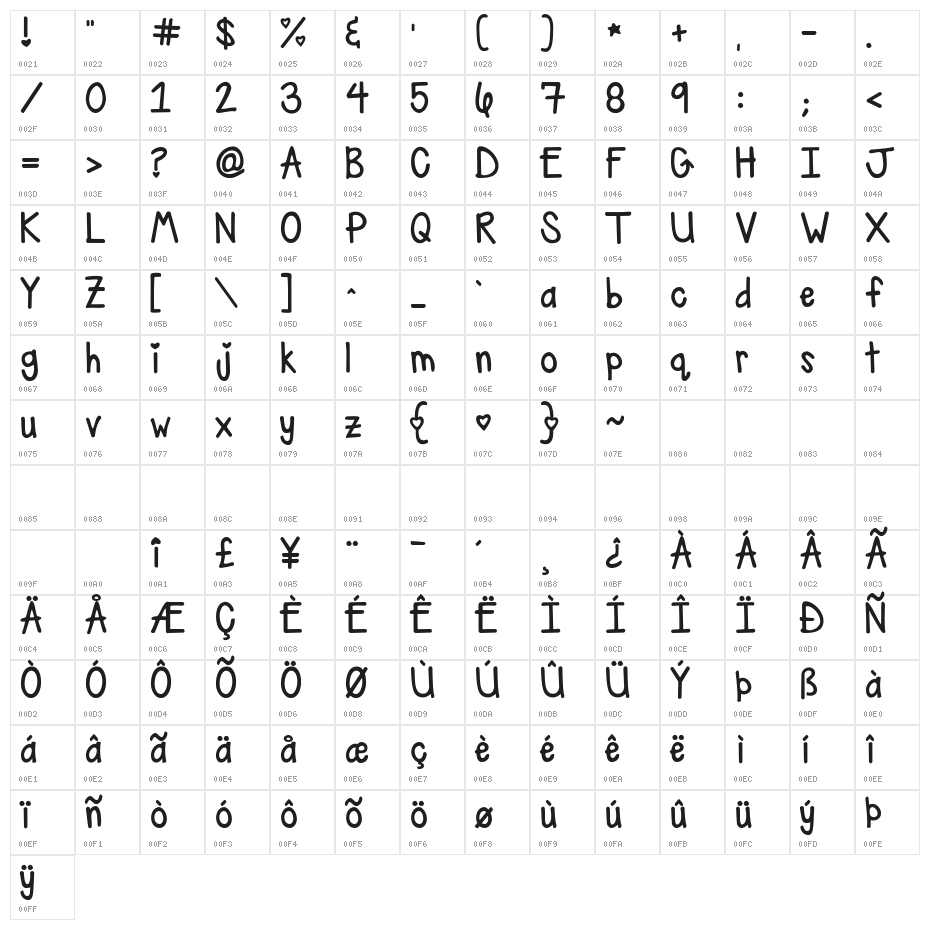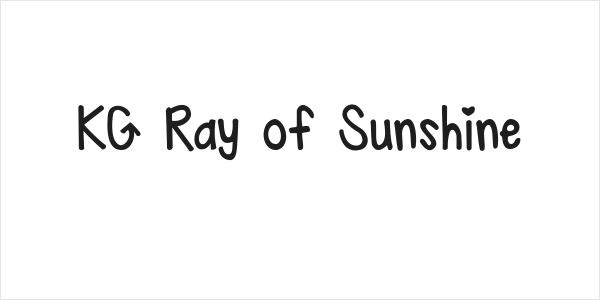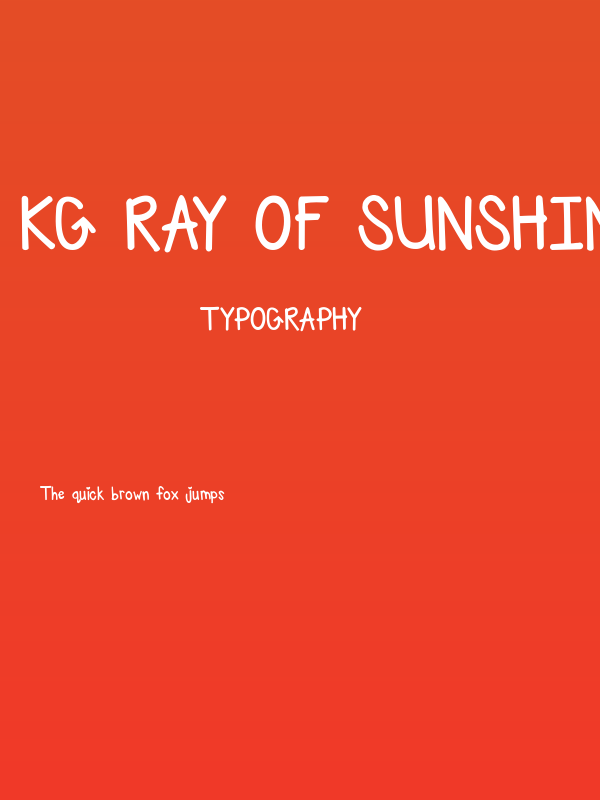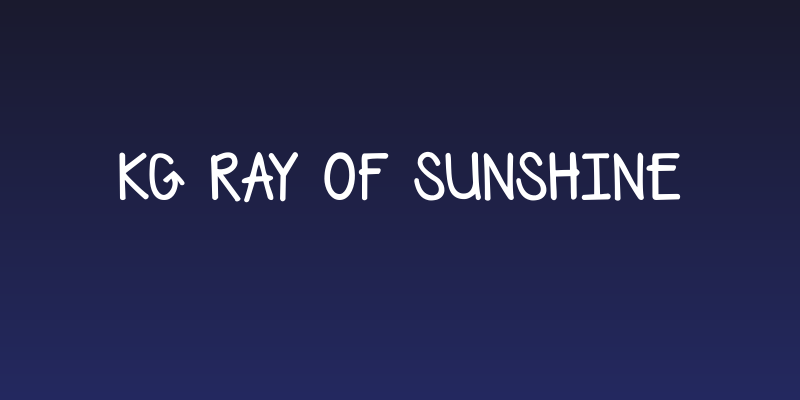
KG Ray of Sunshine Font
KG Ray of Sunshine Description
This playful and whimsical font features a handwritten style with a charming and friendly appearance. The letters are rounded and slightly irregular, giving them a casual and approachable feel. Some characters, like the 'i' and 'j', have heart-shaped dots, adding a touch of fun and creativity. The font maintains a consistent stroke width, contributing to its clean and legible look. It includes a full set of uppercase and lowercase letters, numbers, and a variety of special characters, making it versatile for different design needs.
| Use Case | Headlines, Logos, Informal text |
| Proposed Projects | Ideal for children's books, greeting cards, playful branding, and social media graphics. |